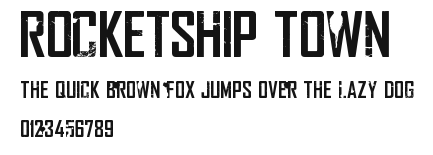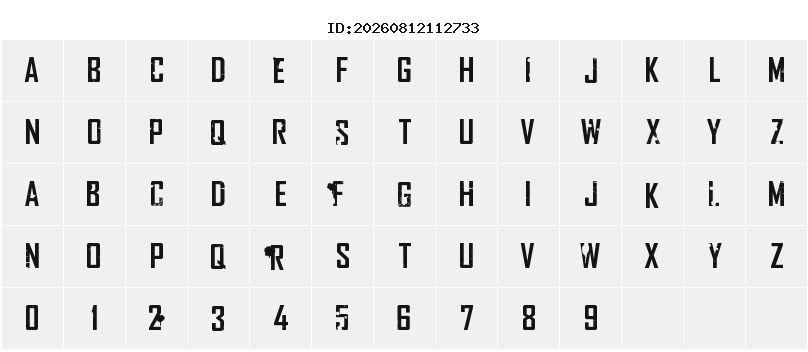
• Font Name: Rocketship Town
• Full Font Name: Rocketship Town
• Version: Version 1.00 May 14, 2005, initial release
Rocketship Town.ttf is a modern, elegant sans-serif font designed for ultimate readability and visual harmony. Perfect for branding, headlines, web design, and print materials.